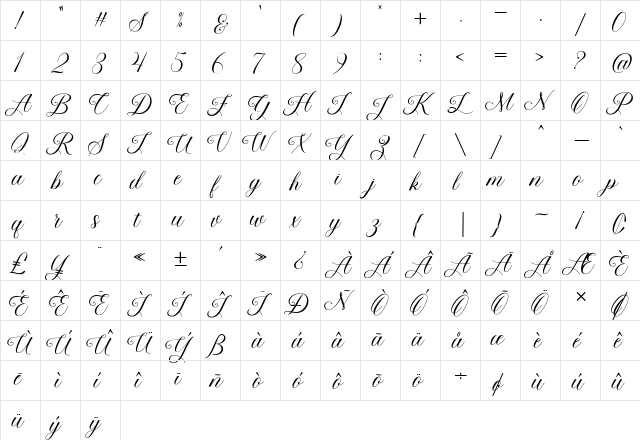
Beauty Queen Script Regular
| Foundry | LetterFreshstudio |
| Designer | RIZKI ANDIKA |
Design Context for Beauty Queen Script Typeface
Beauty Queen Script flows with the natural rhythm of handwritten lettering, making it ideal for designs that call for warmth and personal expression.
Font Pairing: Combine Beauty Queen Script with a simple geometric sans for maximum contrast — the tension between flowing curves and clean structure is a classic typographic pairing.
Pro Tip: Use Beauty Queen Script for short runs of text — names, titles, or taglines. Extended body copy in script faces tires the eye quickly.